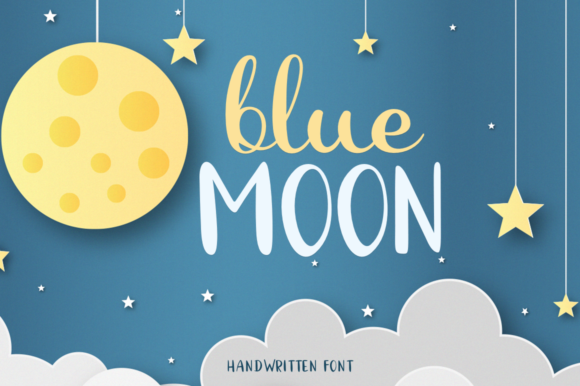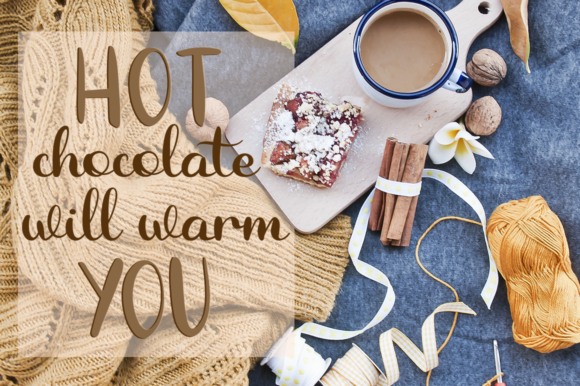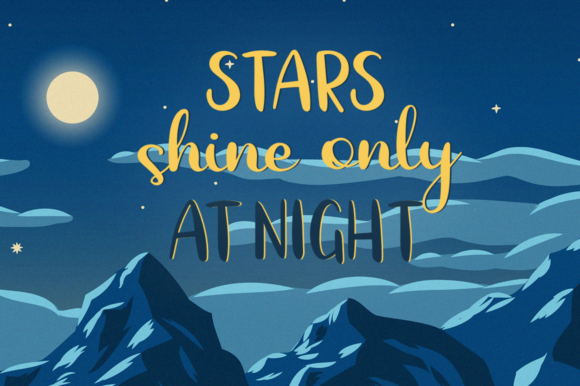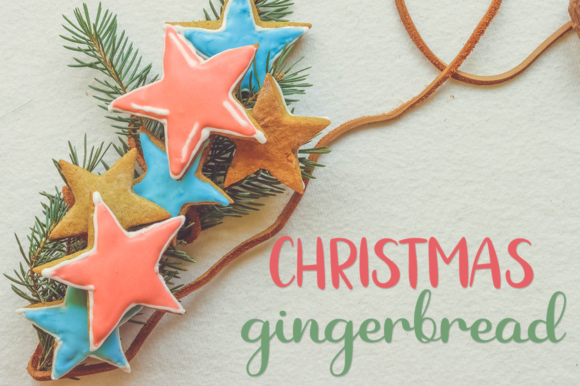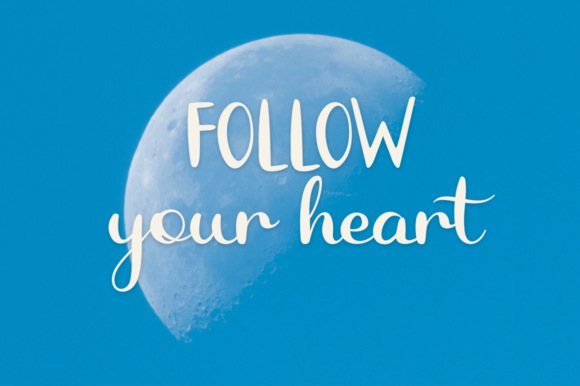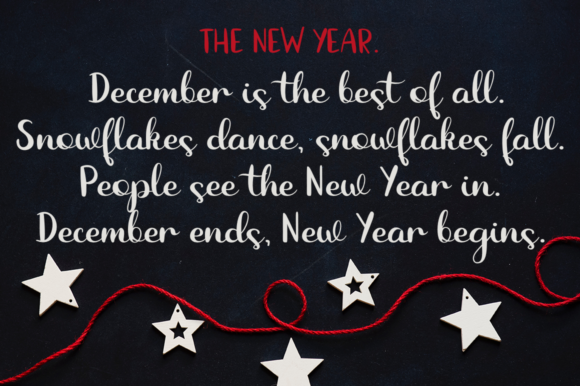
HomeScript FontsBlue Moon Font Script Fonts Blue Moon Font FacebookXPinterestWhatsApp Blue Moon Font Poster 2 Blue Moon Font Poster 3 Blue Moon Font Poster 4 Blue Moon Font Poster 5 Blue Moon Font Poster 6 About Blue Moon Font The Blue Moon is a fresh handmade script. It’s ideal for branding and decorating your projects. DOWNLOAD NOW People also explored Hey Monday Font Boozy Bookworm Font Shely Cute Font Rushmore Font October 1892 Font Atakana Believe Font Britter Font Square Postcard Mockup 434 0 TagsBlue Moon Font Previous articleAugust Duo FontNext articleBoulevard Font LEAVE A REPLY Cancel reply Comment: Please enter your comment! Name:* Please enter your name here Email:* You have entered an incorrect email address! Please enter your email address here Website: Save my name, email, and website in this browser for the next time I comment. Personal Use Free Casual Personal Use Free Read more about this font The Brighton Personal Use Free Read more about this font First Be Lucky Personal Use Free Read more about this font Chandella Personal Use Free Read more about this font BLOG Best Fonts for YouTube Videos: Make Your Thumbnails Stand Out Best Fonts for YouTube Videos: Make Your Thumbnails Stand Out Choosing the right font can make a massive difference in how your YouTube videos perform.... Transform Your Website: Elevate Your Typography with 7 Best Web Font Generators Exploring Font Trends Where to Buy American Fonts Online in 2024